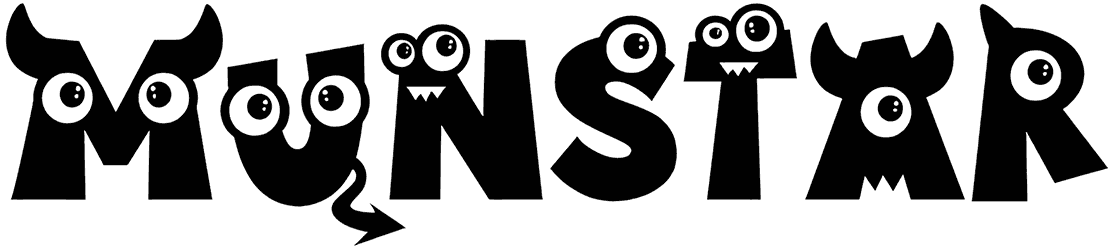
Munstar Font
Meet Munstar, a bold, decorative cartoon font that looks like a cute monster, coming with and without eyes and horns. If you choose this monster font, it has the potential to draw all attention to your design in an instant. It doesn’t include lowercase letters.
With such a playful display, it will be awesome for kids’ apparel, animation titles/posters, storybook covers, toy products, and other stuff that needs a childish touch.